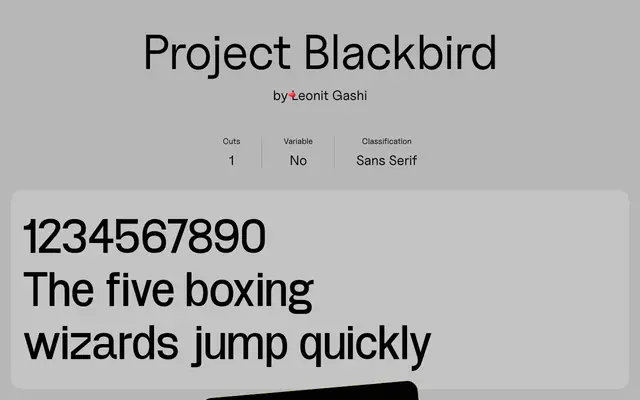
Project Blackbird
A single-cut sans-serif by Leonit Gashi, released under the SIL Open Font License for free commercial and personal use.
A minimal sans-serif offered in one cut with no variable axis or italic companion. Released under SIL OFL 1.1, it permits commercial use, modification and redistribution with some conditions. Little distinguishing detail is available beyond its classification as a sans-serif from designer Leonit Gashi.
Listed under Sans Serif with no further sub-classification; the name and single-cut structure suggest a straightforward grotesque or geometric sans.